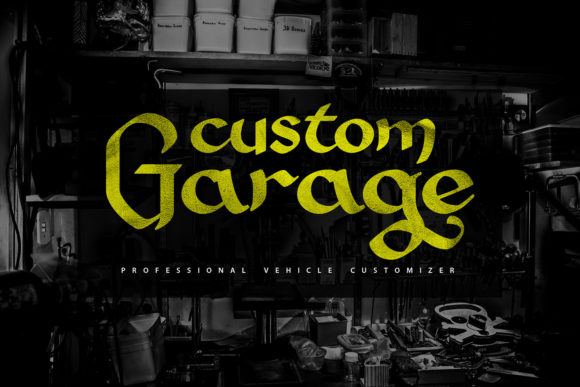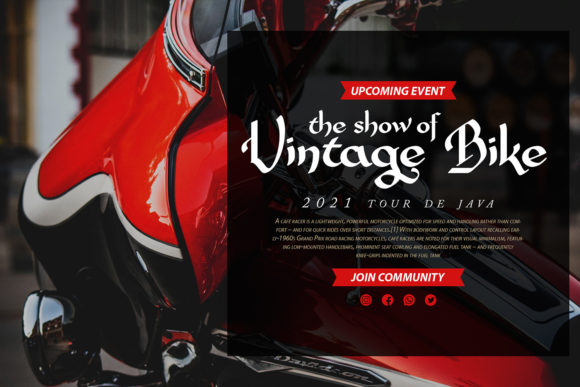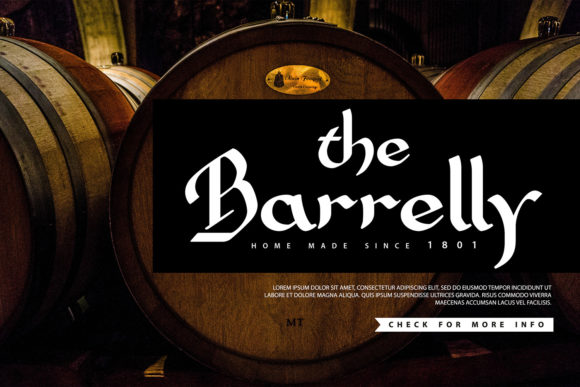
Introduction to Rhitless Font
Rhitless is a distinct and elegant blackletter font.
It reads as strong, confident, and dynamic and can add tons of nostalgic character to your designs .
Why Choose Rhitless Font?